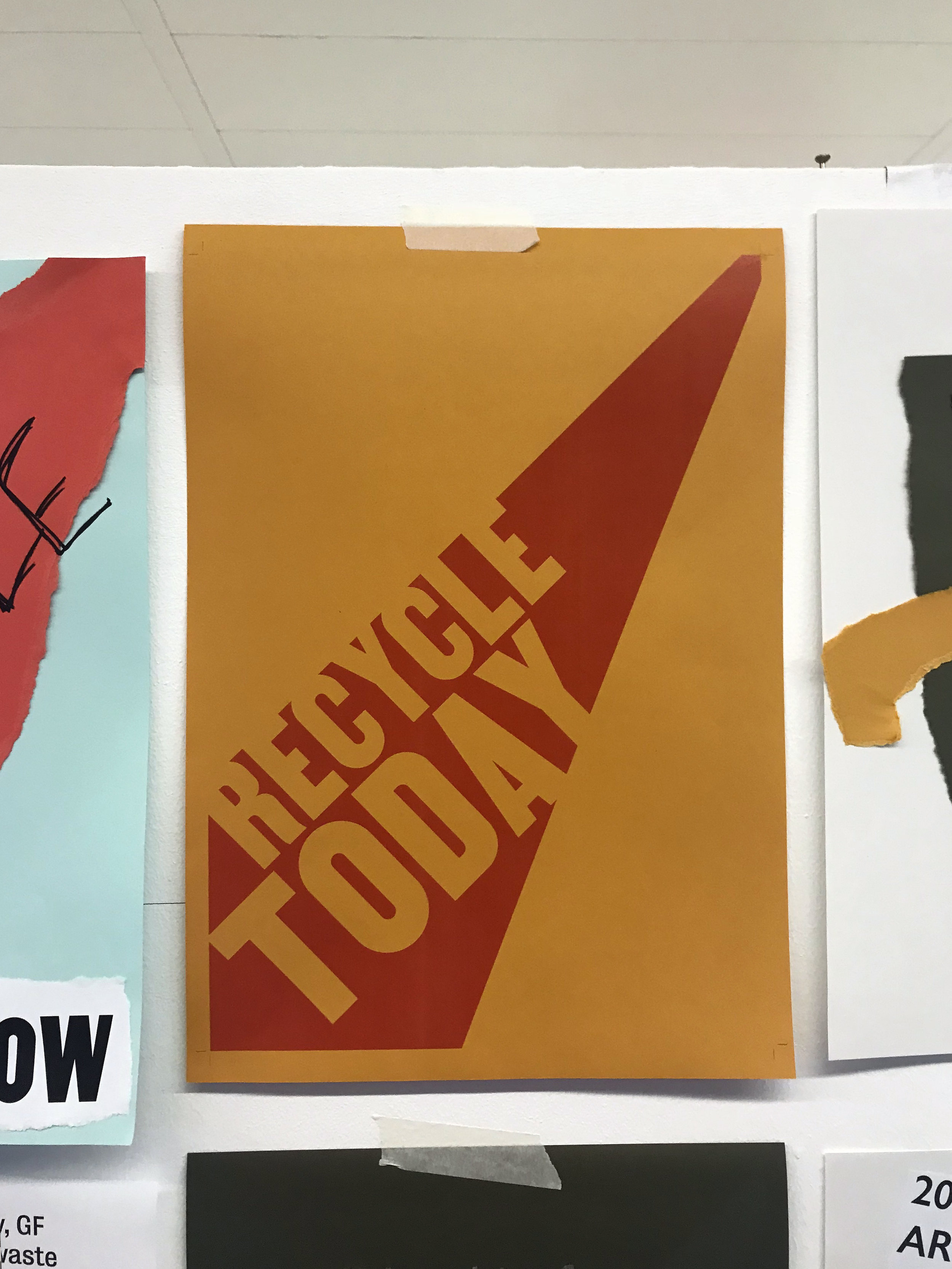
Emory Douglas Poster
Commissioned by AIGA Minnesota, Matthew Olin crafted this beautiful poster for a lecture delivered by the one and only Emory Douglas, Minister of culture of the Black Panther Party.
Try Cry Die
An A1 print designed by Daniel Angermann.
Ruined By Design: The Zine
MARTIN in use for Ruined By Design: The Zine is a continuation of the amazing book Ruined By Design: How Designers Destroyed the World, and What We Can Do to Fix It by Mike Monteiro.
Renegade Theater Company
Designed by Matthew Olin of Likewise, “The Meeting” is about an imaginary meeting between Martin Luther King, Jr. and Malcolm X in 1965 during the height of the Civil Rights Movement.
Euroman Magazine
Designed by Thomas Bredesen, Art Director of Euroman Magazine.
Union The Musical
Every once in a while, there is a project that comes together, and the results are so beautiful that it feels like fate. This website, designed by Memphis-based Cheers Creative, was made to promote Union The Musical, a play about the Memphis Sanitation Strike of 1968, using Memphis-based actors, and descendants of the Sanitation workers, and a typeface inspired by the strike.
cHICAGO dESIGN mUSEUM
Design by legendary designer, author, and teacher, Gail Anderson.
Saul Studio
MARTIN in use by Dr. Henry Irving, Students of Leeds Beckett University (UK), and Saul Studio.
Design&Dissent
A thesis project by Chris von Burske.
Jack Jones Literary Arts
Based in Los Angeles, Jack Jones Literary Arts publicizes bold, forward-thinking literature that privileges narratives told by black women and women of color.
Designed by Tom Kracaue, a series of pins and tote bags were created for the online shop of Jack Jones Literary Arts.